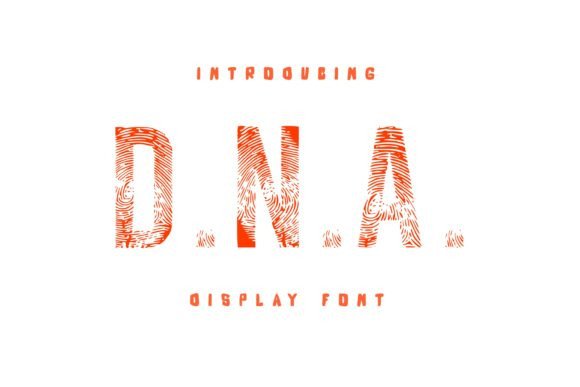
Journey into the realm of captivating expression with D.N.A. Font, the ultimate display font that ignites creativity and transforms ordinary designs into masterpieces. Crafted by the visionary Rasa, D.N.A. is not just a font; it's an artistic revolution, a gateway to unleashing your imagination and leaving an indelible mark on the world of visual communication.
Bold, Energetic, Unforgettable: Embark on a typographic odyssey with D.N.A. Font, where every letter is a stroke of brilliance. Its bold and energetic personality commands attention, demanding to be seen and felt. With D.N.A., your words transcend mere text and become visual poetry, captivating your audience with their sheer presence.
Posters That Pop, T-Shirts That Thrill, Stickers That Stick: Unleash the full potential of your creative vision with D.N.A. Font. Its versatility knows no bounds, effortlessly adapting to a myriad of design projects. Craft posters that leap off the wall, demanding attention with their vibrant energy. Design t-shirts that resonate with individuality, expressing your unique style with every thread. Create stickers that cling to surfaces, leaving a lasting impression wherever they're placed.
Outstanding Artwork, Effortless Elegance: Transform your creative endeavors into works of art with D.N.A. Font. Its meticulously crafted characters exude an air of sophistication, elevating your designs to new heights. Whether you're a seasoned graphic artist or just starting your creative journey, D.N.A. Font empowers you to create stunning visuals that leave a lasting impact.
Join the Creative Revolution: Embrace the transformative power of D.N.A. Font and unlock the boundless possibilities of visual expression. Its user-friendly interface and comprehensive character set make it an accessible tool for both seasoned designers and those just starting their creative journey. Step into the spotlight, let your ideas take flight, and experience the joy of creating designs that truly shine.